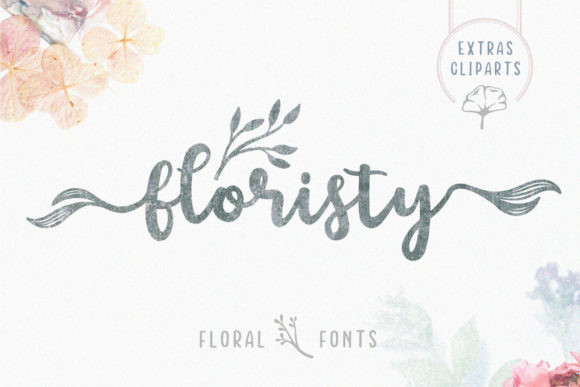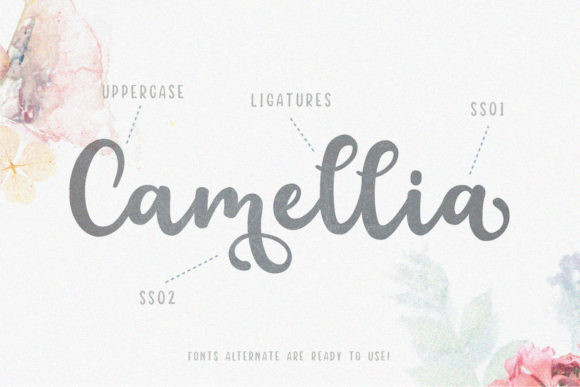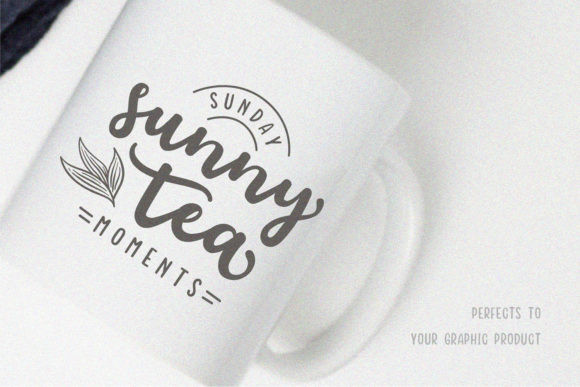
Floristy Font
Floristy FontFloristy is a unique brush style handwritten font. Fall in love with its completely different and timeless style and use it to create spectacular designs!